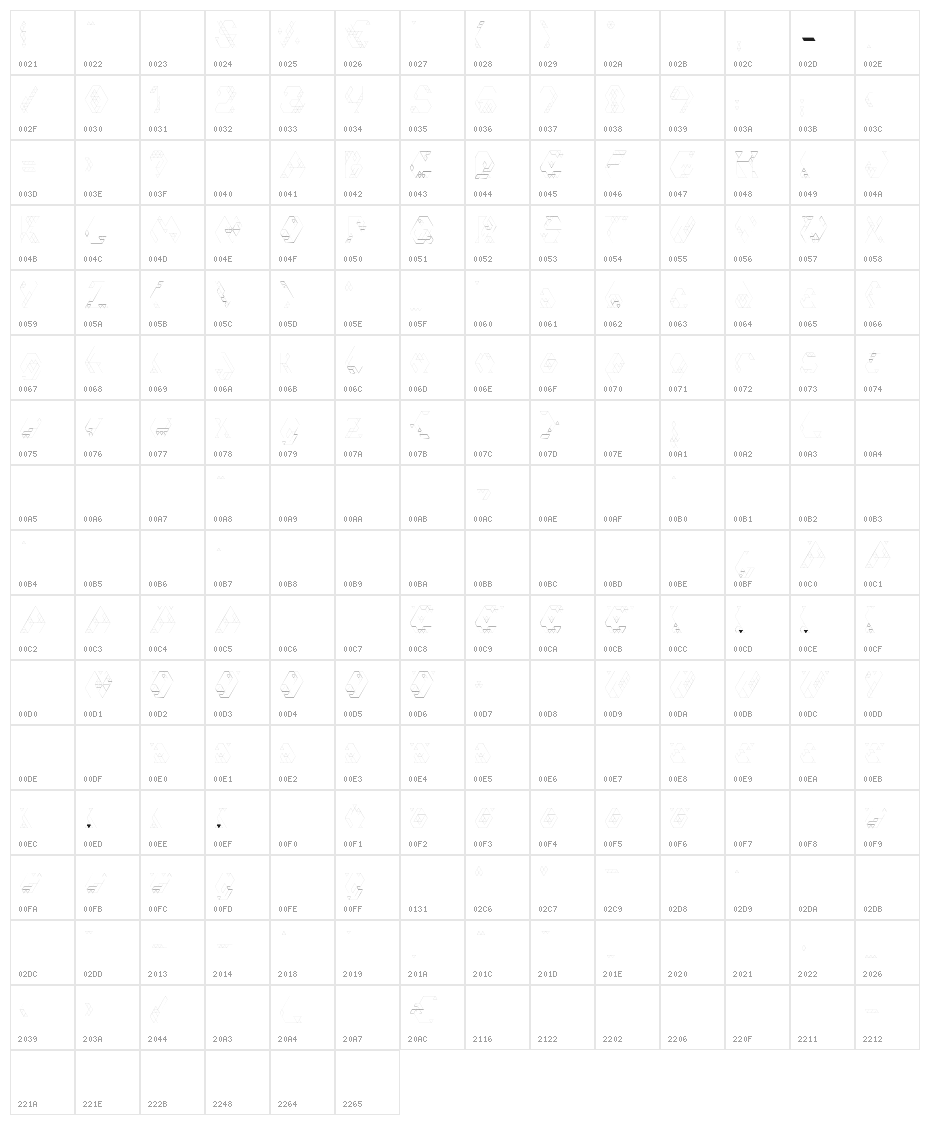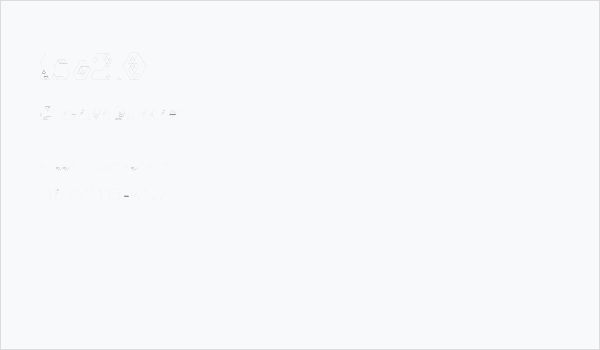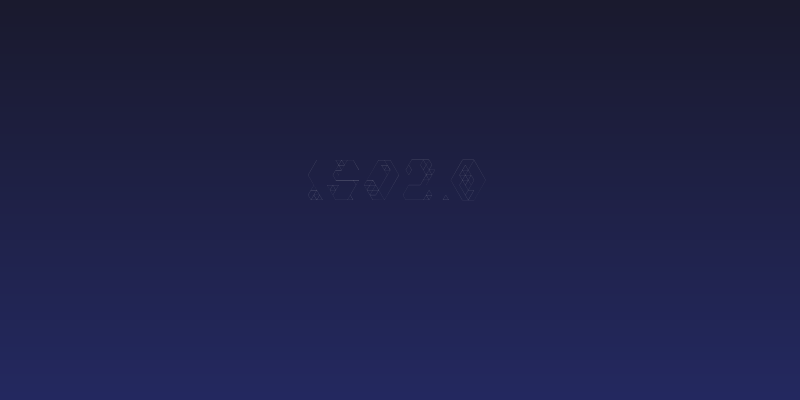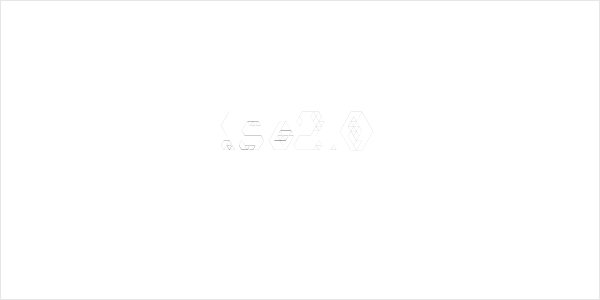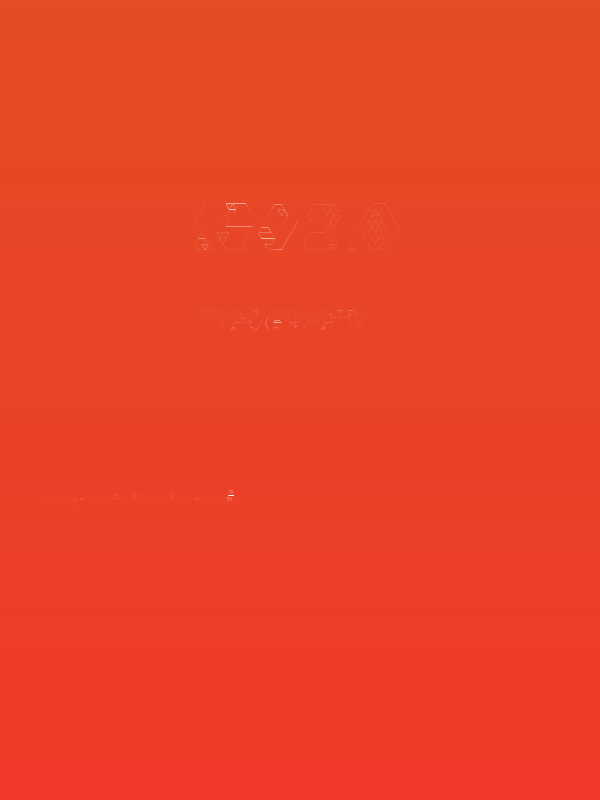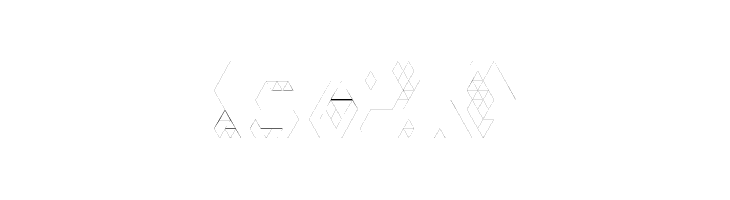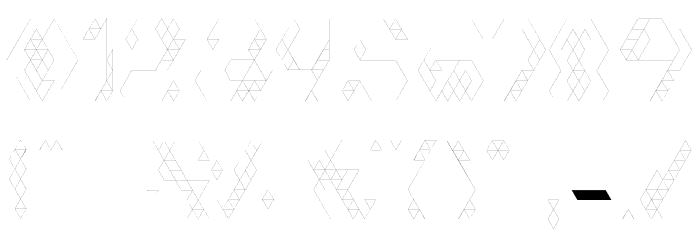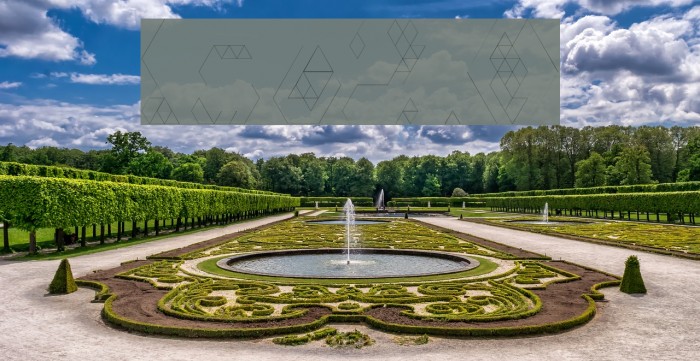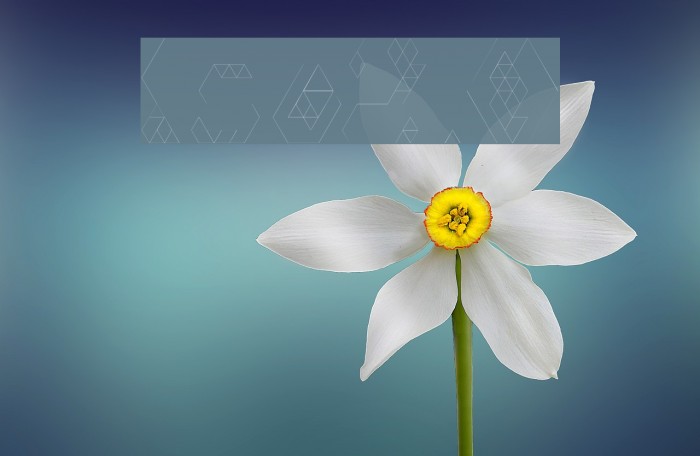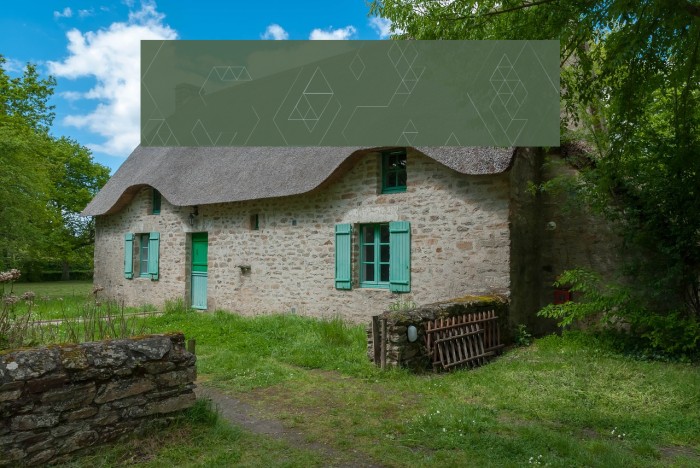
Iso2.0 Font
Iso2.0 Description
This font features a highly geometric and abstract design, characterized by its use of triangular and angular shapes to form each character. The letters and numbers are constructed with a series of interconnected lines and shapes, creating a futuristic and digital aesthetic. The font's unique style makes it stand out, with each character appearing as a complex puzzle of geometric forms. This design approach gives the font a modern and innovative feel, suitable for projects that require a distinctive and eye-catching typeface.
| Use Case | Logos, Headlines, Posters |
| Proposed Projects | Ideal for technology branding, digital art projects, modern posters, and innovative product packaging. |